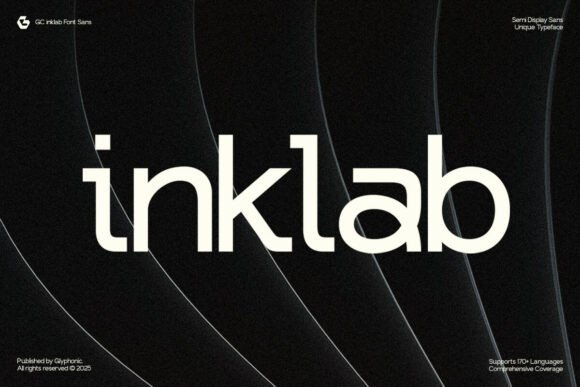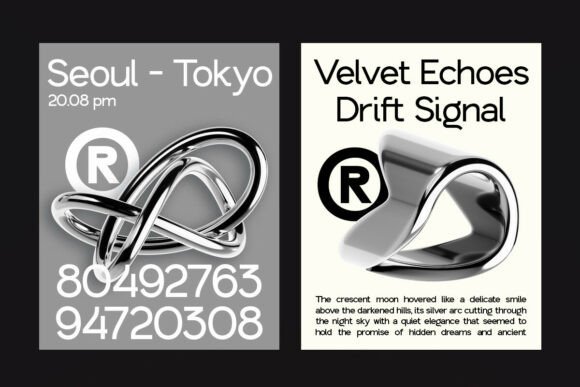
Gc Inklap Font
GC Inklab is a semi-display sans-serif typeface that masterfully blends clean geometric shapes with subtle typographic quirks. It’s a font designed to make an impact, offering clarity and confidence for standout headlines, modern branding, editorial visuals, and digital interfaces.
This font’s balanced letterforms and clean construction give it a forward-thinking yet accessible personality. It’s the perfect choice for a wide range of projects, including tech branding, design posters, UI systems, and creative identities. GC Inklab helps you create a look that is both precise and modern, ensuring your designs are memorable.